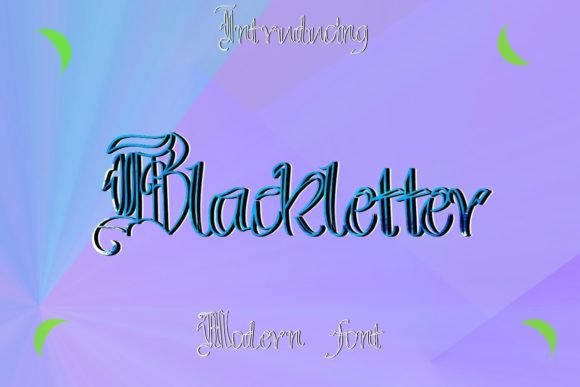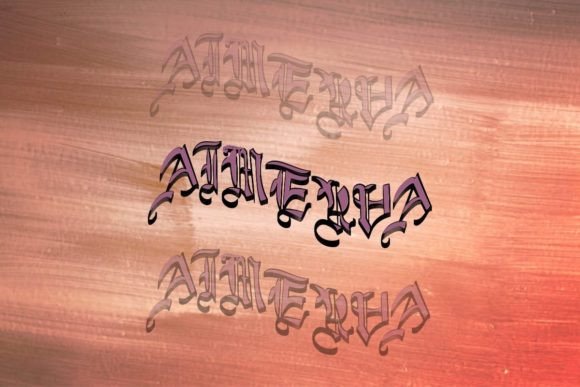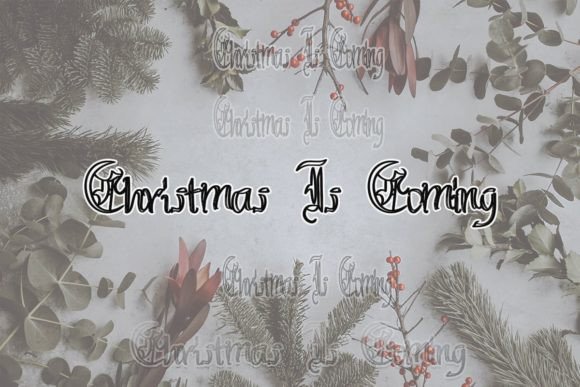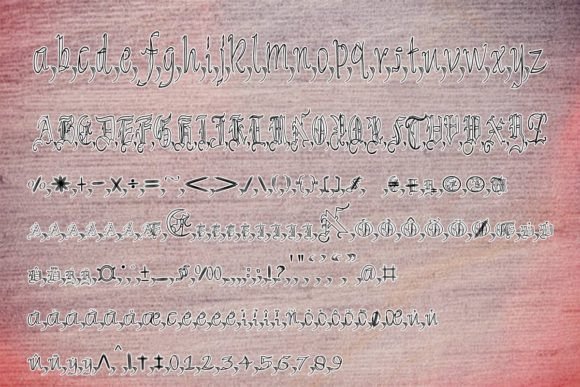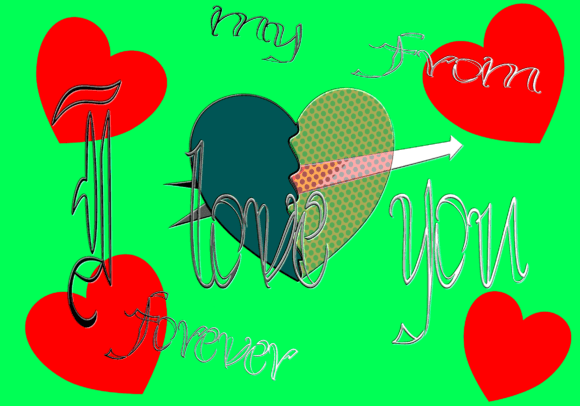
The Art of Adding Drama to Your Designs
Have you ever stared at a blank canvas, wondering how to bring your creative vision to life? That’s exactly where I was when I stumbled upon the Blackletter Font. Its bold, Gothic lines and intricate details immediately caught my attention, and I knew I had to learn more.
Blackletter Font is a unique and captivating typeface that adds a touch of drama to any design. Whether you’re creating a poster, a logo, or a website, this font is sure to make a statement. As a designer, I can appreciate the value of having a versatile tool like the Blackletter Font at my disposal.
Blackletter Font Key Features
- Font Style: Blackletter fonts are a type of calligraphic font characterized by their ornate, gothic, and medieval appearance.
- Unique Characteristics: Distinctive features include extended letters, elaborate flourishes, and intricate connections between letters.
- Historical Significance: Originated in the 12th century, Blackletter fonts were used extensively in medieval manuscripts and are still used today in various contexts, including typography, calligraphy, and design.
- Typographic Use: Suitable for use in formal, elegant, and dramatic contexts, such as book titles, headings, and decorative text.
Designer Review: Blackletter Font
Blackletter font is a unique and eye-catching font that stands out in any design. ✨ The intricate and ornate details of this font make it perfect for adding a touch of elegance and sophistication to your work. ✨ The bold and dramatic feel of the font is sure to grab the attention of your audience and make your design stand out from the crowd.
However, there are some limitations to consider when using the Blackletter font. ⚠️ For one, the font can be quite difficult to read in certain situations, such as in small sizes or in complex layouts. ⚠️ Additionally, the font’s ornate details can sometimes make it feel cluttered or overwhelming, especially when used in large quantities.
Here are some specific limitations to consider:
- Difficult to read in small sizes
- Cluttered or overwhelming in large quantities
- May not be suitable for body text or long blocks of text
Overall, I would say that the Blackletter font is a great choice for designers who want to add a touch of drama and elegance to their work. Just be sure to use it sparingly and in situations where it will really shine. With the right design and usage, the Blackletter font can be a real showstopper.
Tips for Getting the Most Out of Blackletter Font
Use Blackletter font for dramatic and Gothic-inspired designs. Pair it with bold colors and bold lines to create a striking visual effect. Experiment with layer blending modes and effects to add depth and dimension to your design.
Blackletter font is commonly used for:
- Book covers and publishing
- Graphic design and typography
- Historical and vintage-inspired designs